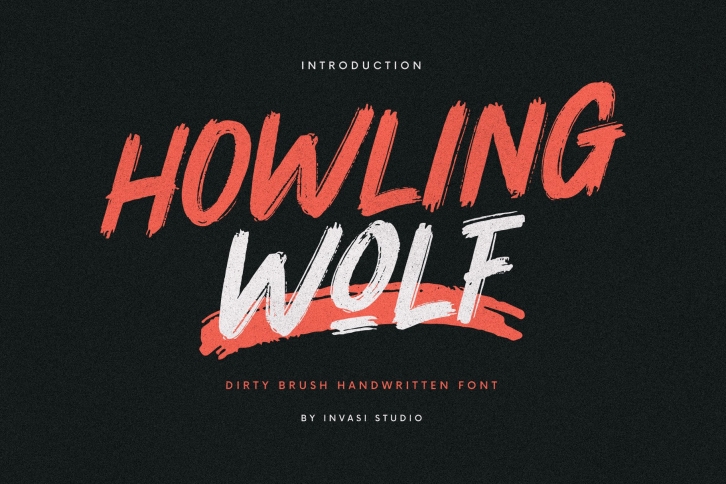
Howling Wolf is a cool, bold and brushed display font. It is suitable for designs such as t-shirts, sportswear, logos, advertisements, clothing, and more.